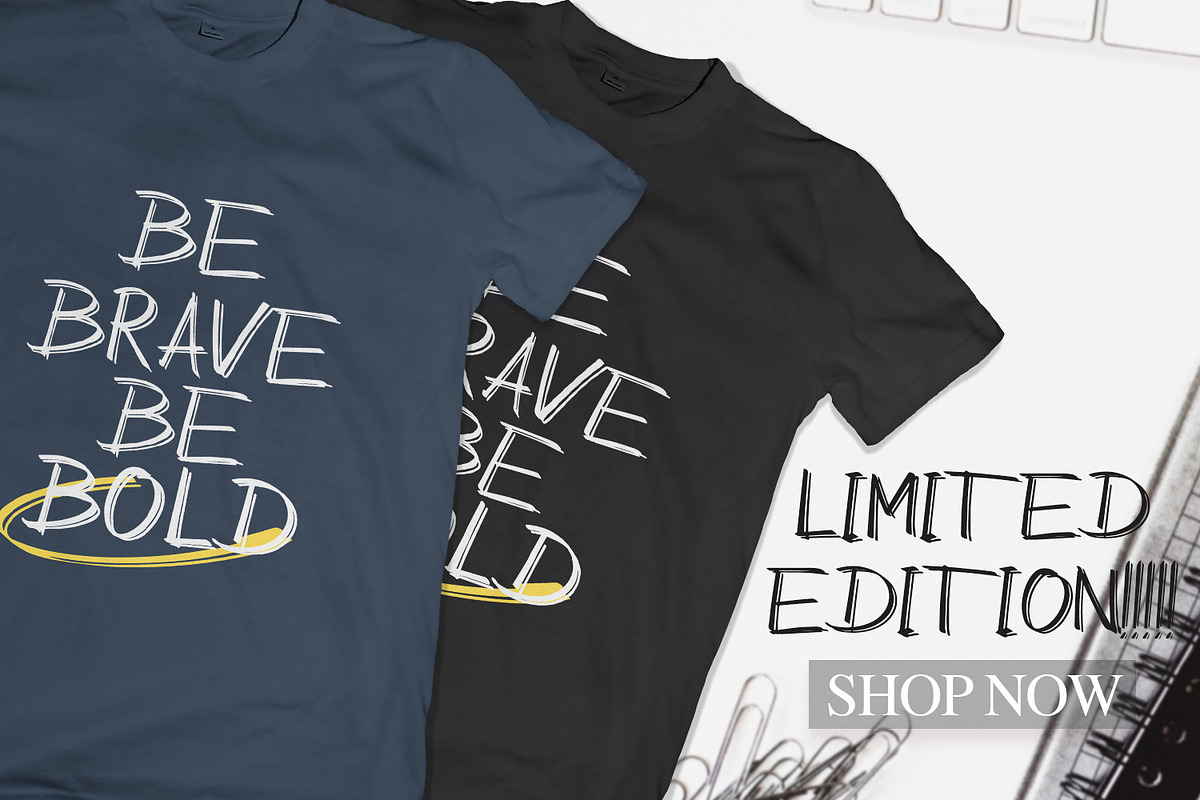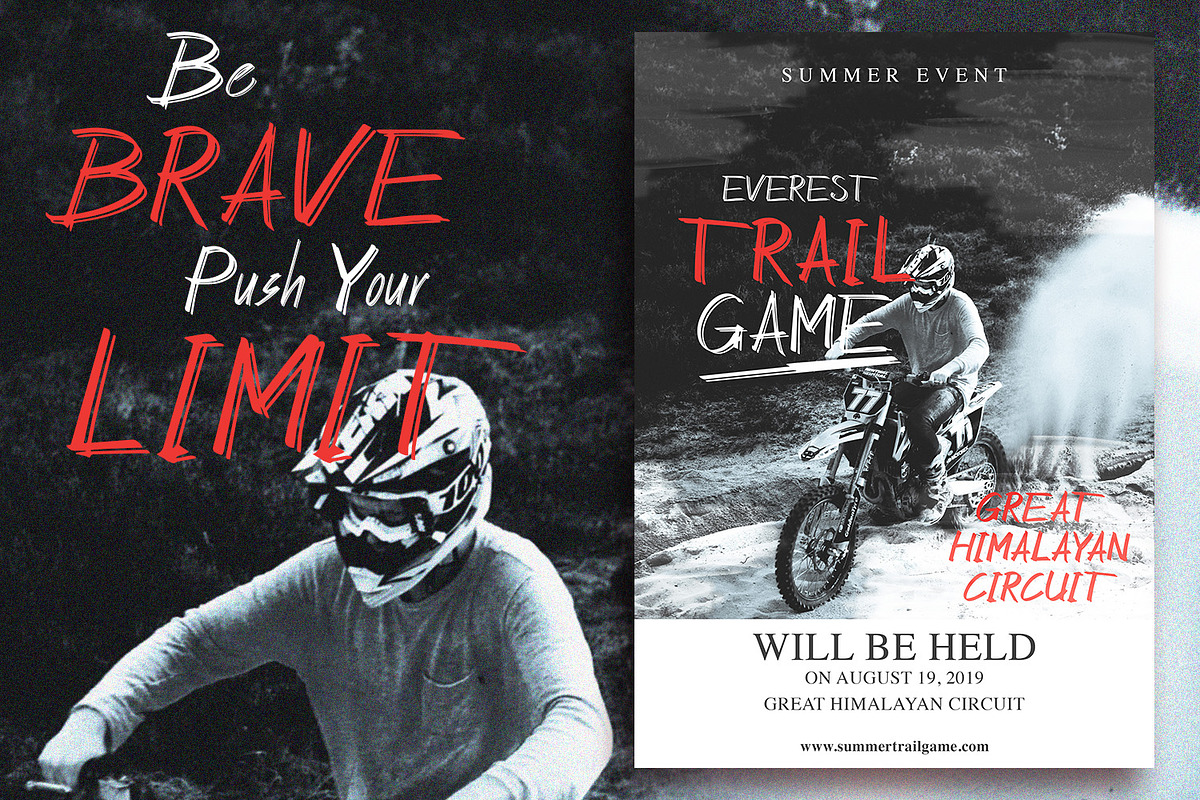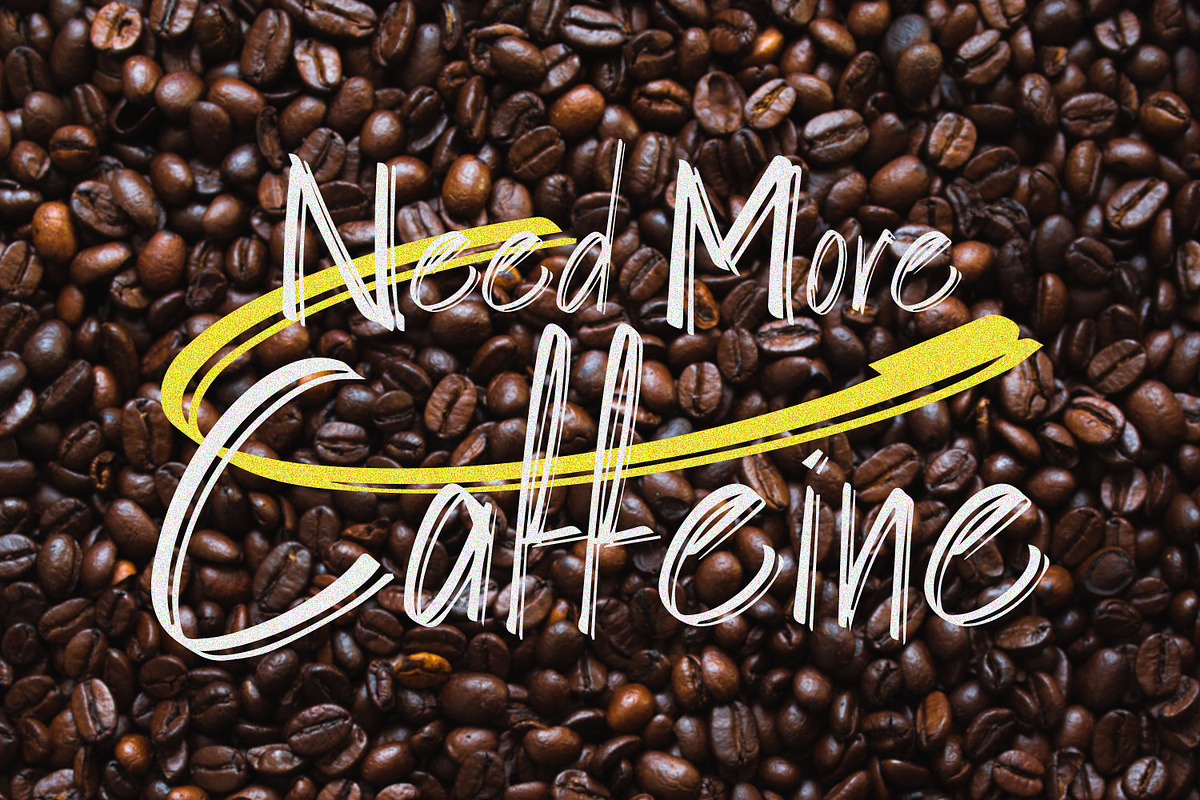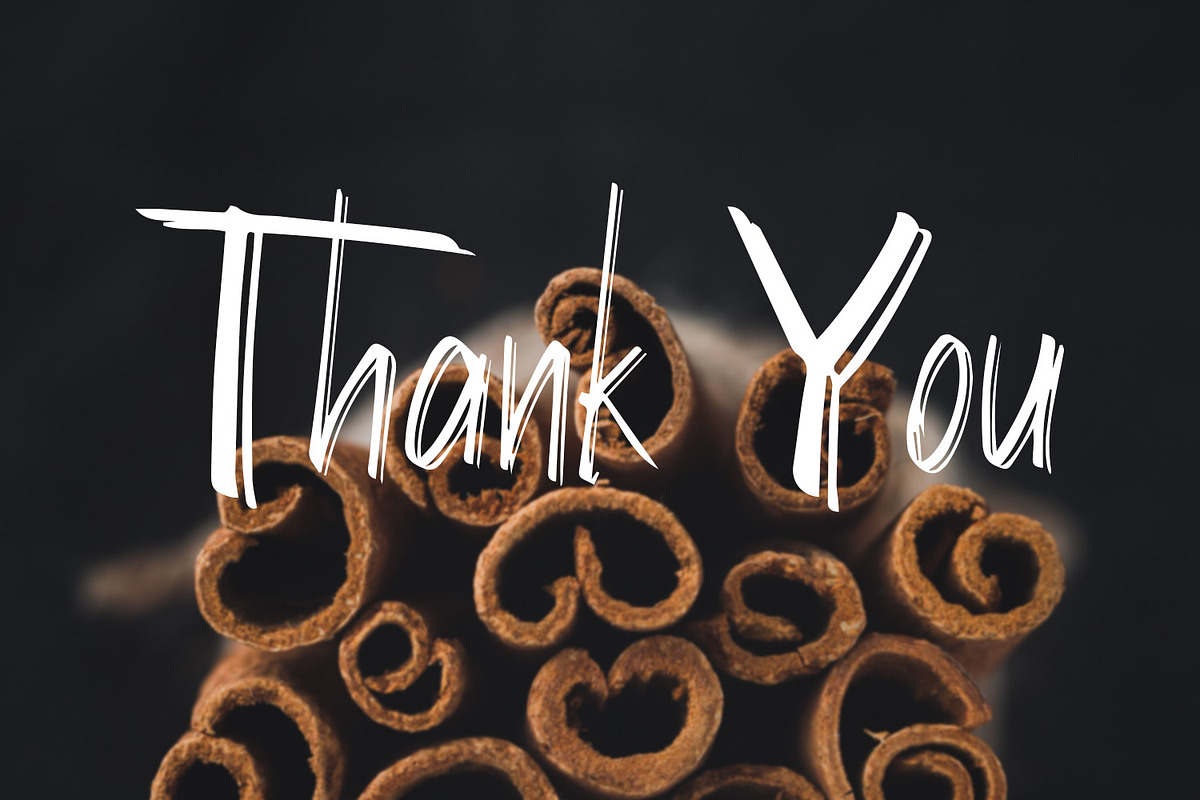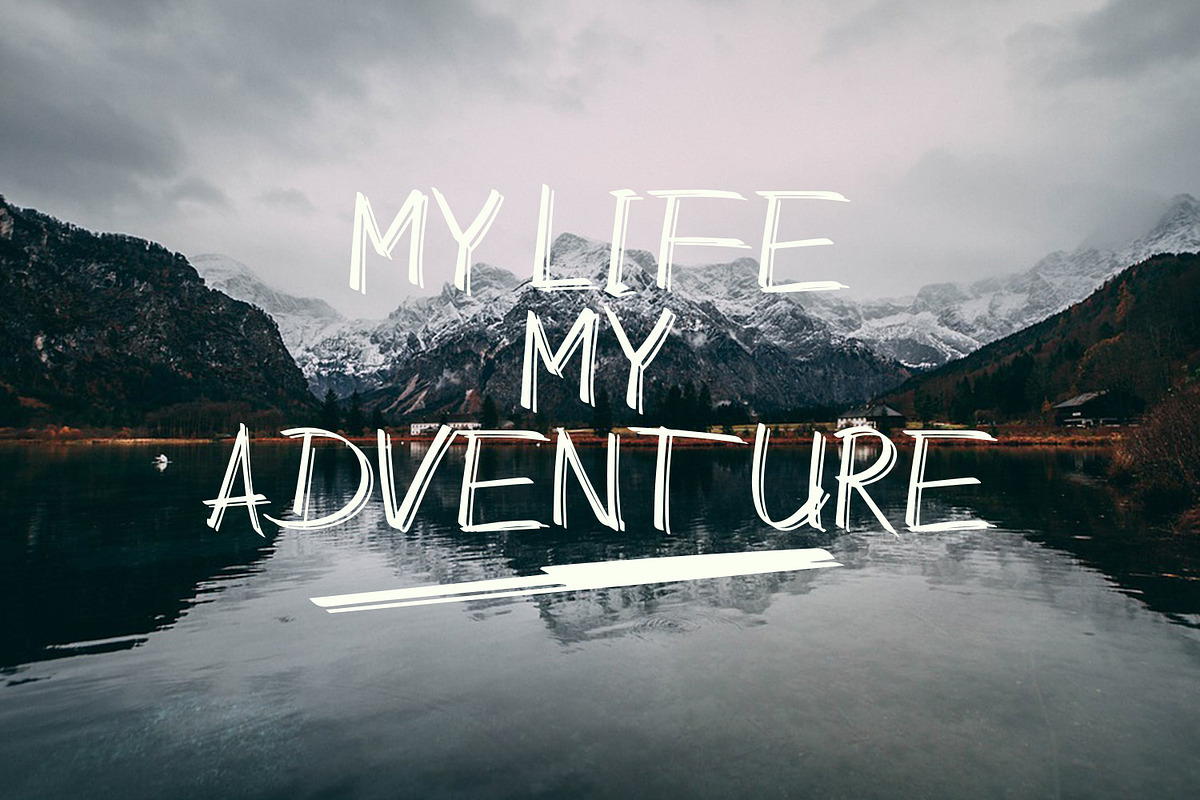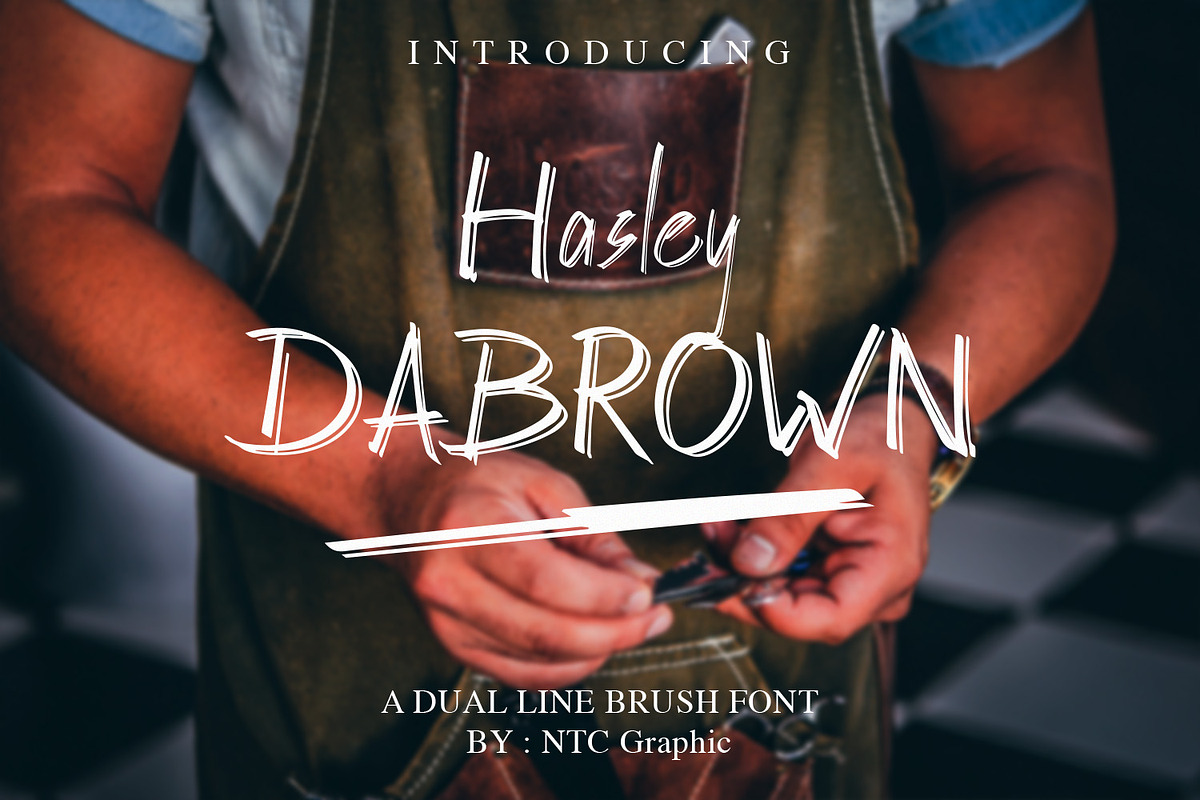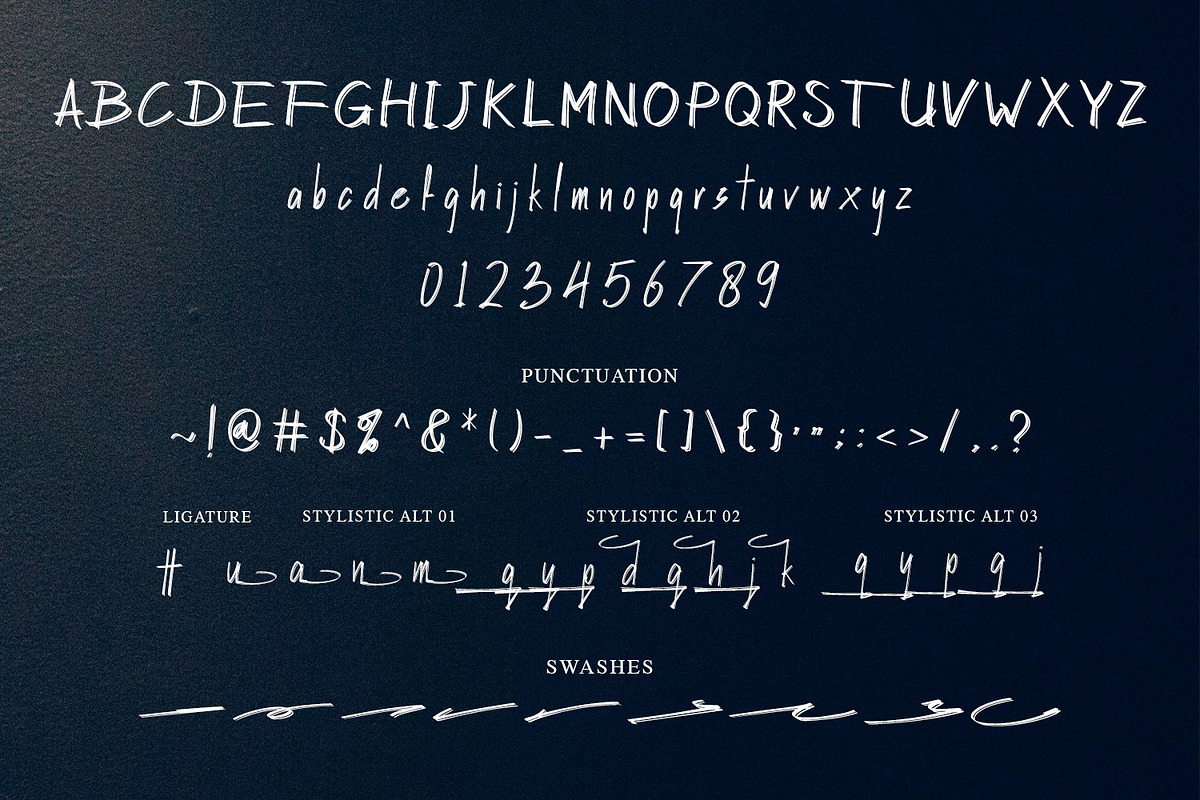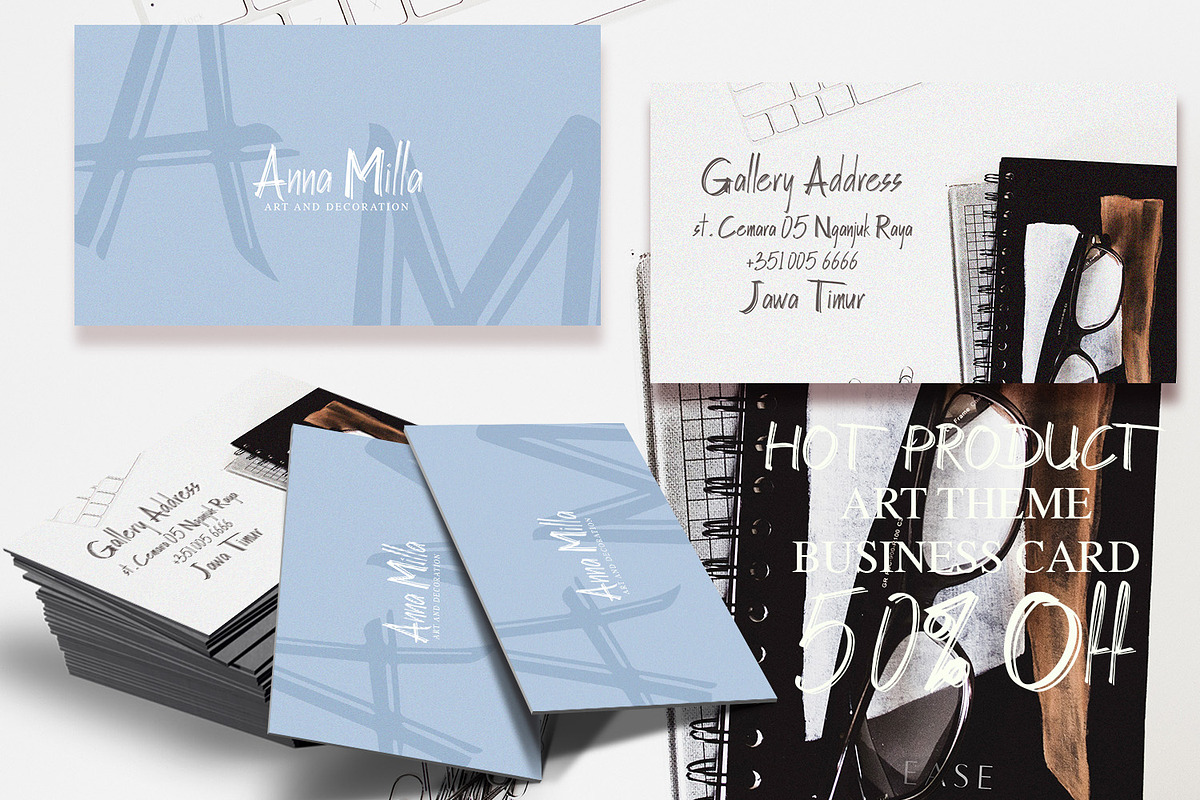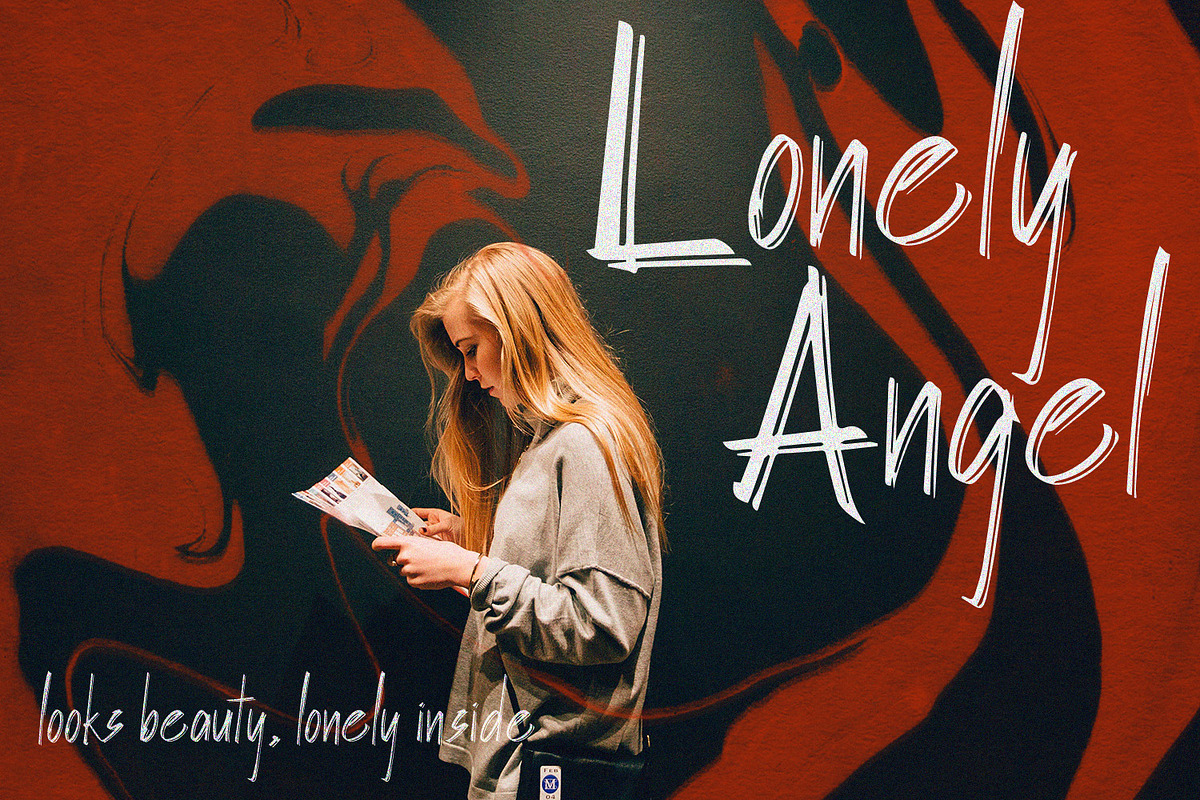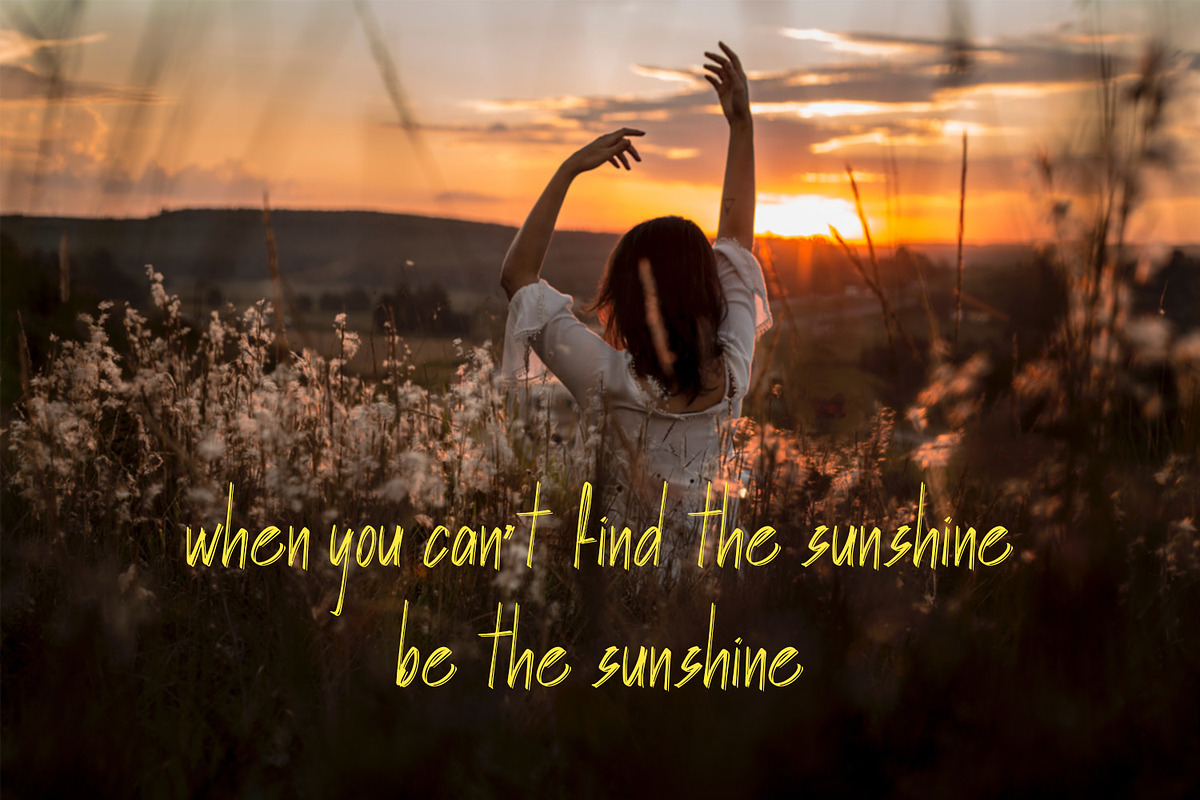
Hasley Dabrown
Hasley Dabrown Dual line Handbrush Font is a font with a two-line brush style with a rough texture. a bold textured font with artistic lines. It is suitable for t-shirt designs, flyers, quotes, artistic business cards, branding and other graphic needs.
Hasley Dabrown Dual line Handbrush font with uppercase characters A-Z, lowercase characters a-z, punctuation, ligature, numerical, swashes and stylistic alternate characters that enhance this font shape.